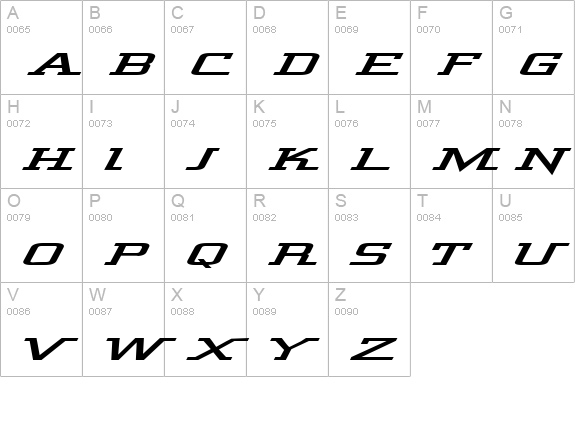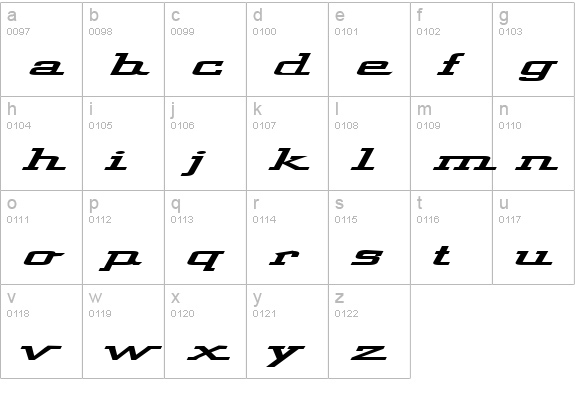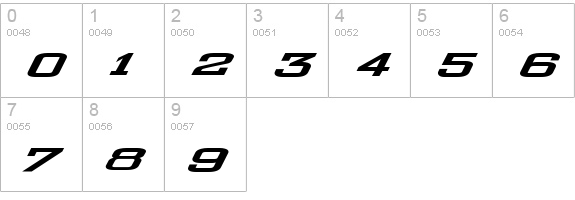
Wide Glide is a distinctive, extended-width variant in the Wide typeface family \xE2\x80\x94 well suited to design and typography projects.
Wide Glide font is a captivating and eye-catching typeface that effortlessly combines modernity with a touch of vintage charm. Its bold and wide letterforms exude a boldness that commands attention and adds a unique flair to any design project. With its strong and confident presence, Wide Glide font is perfect for headlines, logos, posters, and any other creative work that requires a strong typographic statement. Its wide proportions make it legible even at smaller sizes, ensuring that your message is delivered with clarity and impact. What sets Wide Glide font apart is not only its stunning aesthetics but also its accessibility. It is available for free download at FontsMarket.com, making it easily accessible to designers, artists, and enthusiasts who are seeking a versatile and visually striking font to enhance their creative endeavors. Whether you're designing a striking poster, creating a memorable logo, or crafting an attention-grabbing headline, Wide Glide font is the perfect choice to make your work stand out from the crowd. Its distinctive style and freely available download make it a must-have font for any designer's toolkit.